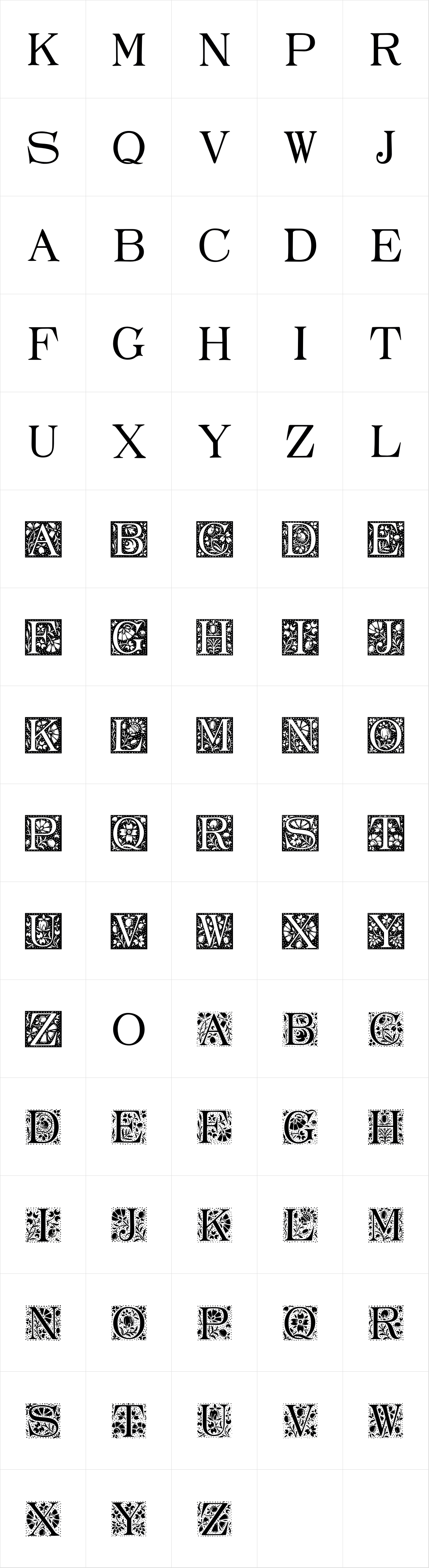
LTC Ornamental Initials Font
- Little is known of the origin of these decorative Initial Caps. Series 448 at 24 point were a different design from the 36 point on which this digital version is based. Rather than just include the basic 26 characters (only 25 existed in the original version), we have included a negative version in the lower case position and a fill character (for two color caps) option in the number and punctuation key positions. To do two color caps, you will need to layer in your design program. For overlays in programs with kerning, type the capital letter followed by a space and the key indicated below. Select and change the color of one of the characters as desired, then remove the space between the characters. The kerning should snap them together for a two color initial letter.